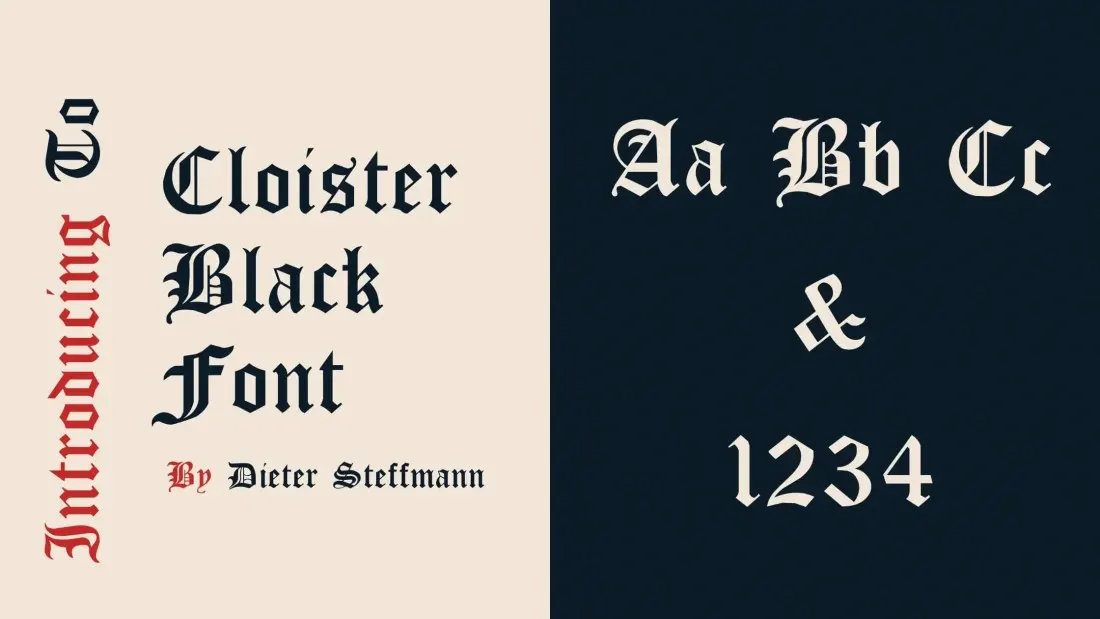
In calligraphy, a black letter, also known as Gothic script or Old English script, is a kind of alphabet that was used for manuscript books and documents across Europe. This style of typeface is recognizable by its dramatic thin and thick strokes, and in some fonts, the elaborate swirls on the serifs. Download your favorite Blackletter font from the collection below.